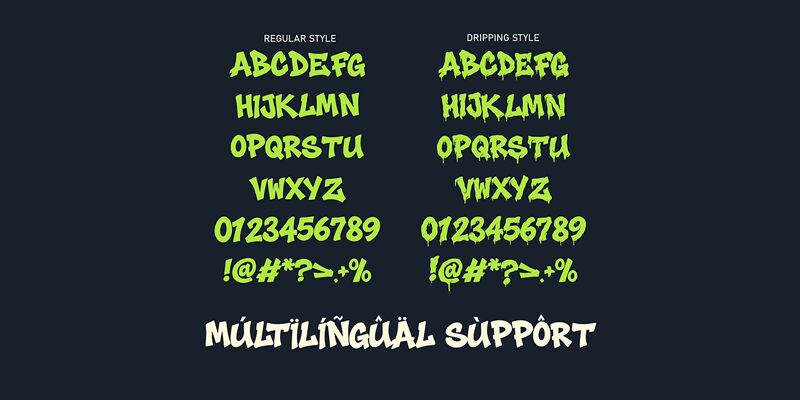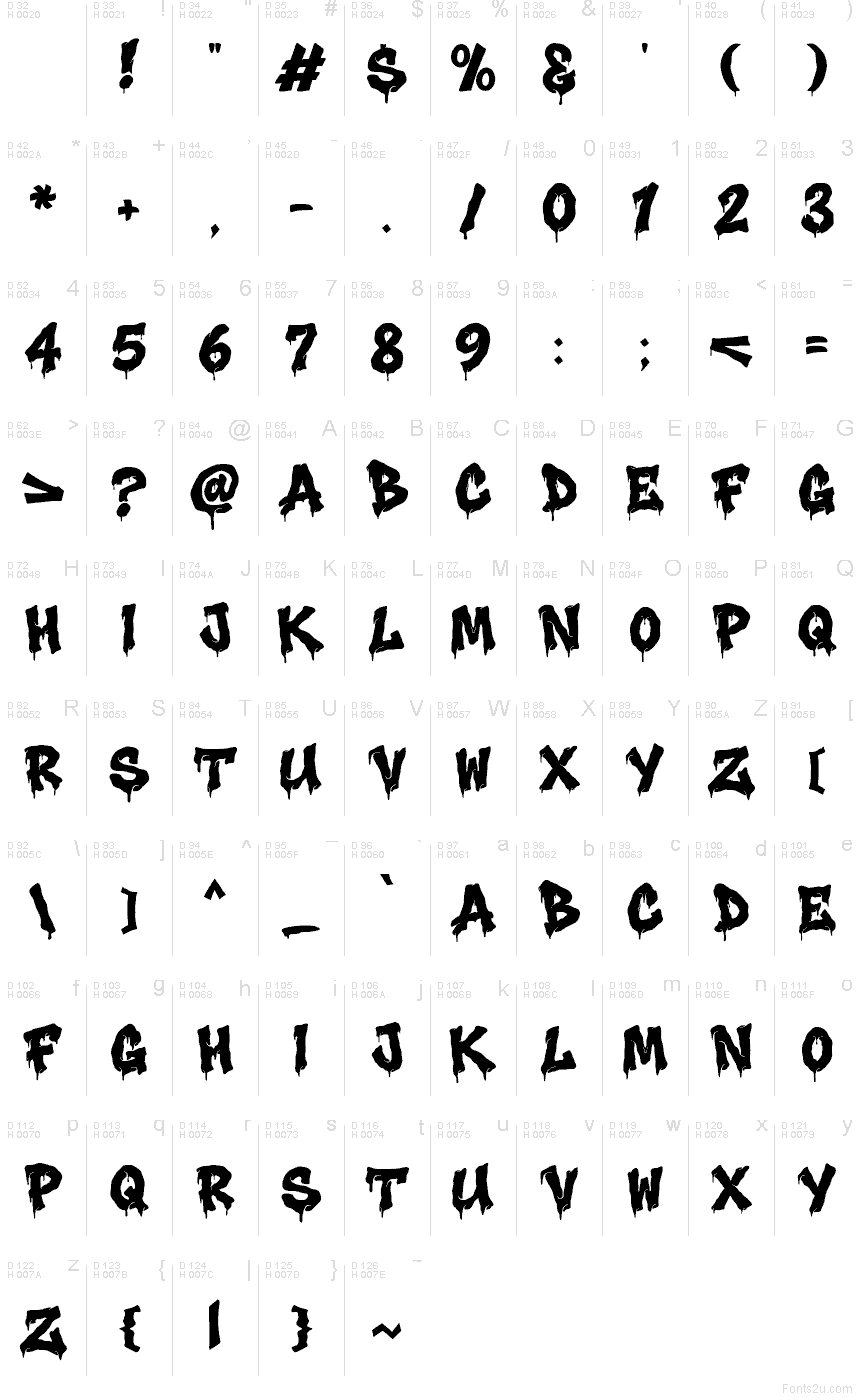
Grime Slime - Dripping
Grime Slime - Dripping font by Saepul Milah of Figuree Studio is a free graffiti font, the kind that looks like it was brushed on in a hurry and left to ooze. The letters feel chunky and inky, with ragged edges and wet drips that hang like fresh paint—loud, grimy, and unapologetic. It’s got that street-poster punch where every word lands with a splatter.
Using Grime Slime - Dripping on horror flyers, Halloween promos, skate or streetwear graphics, YouTube thumbnails, band merch, game titles, and gritty album covers gives instant attitude without extra texture work. This free typeface also hits hard on sticker packs and social headers when you keep the background clean. Pair it with a plain condensed sans for supporting text, and size it up so the drips read clearly at a glance.